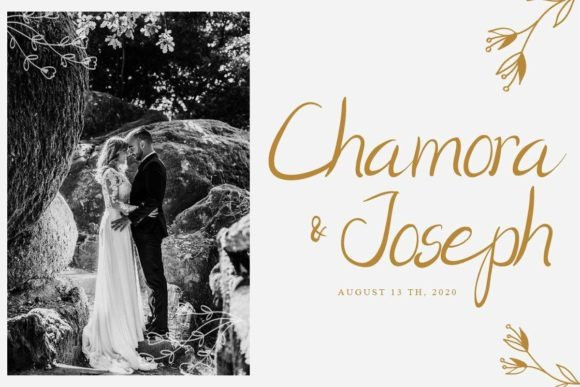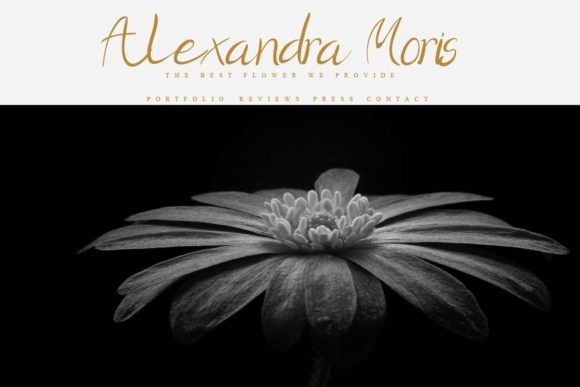
Romatty Script Font
Romatty Script Font by twinletter 16,344 downloads
Romatty Script Font
Romatty is a flowing handwritten font, described by an elegant touch, perfect for your favorite projects. Fall in love with its incredibly distinct and timeless style and use it to create spectacular designs!